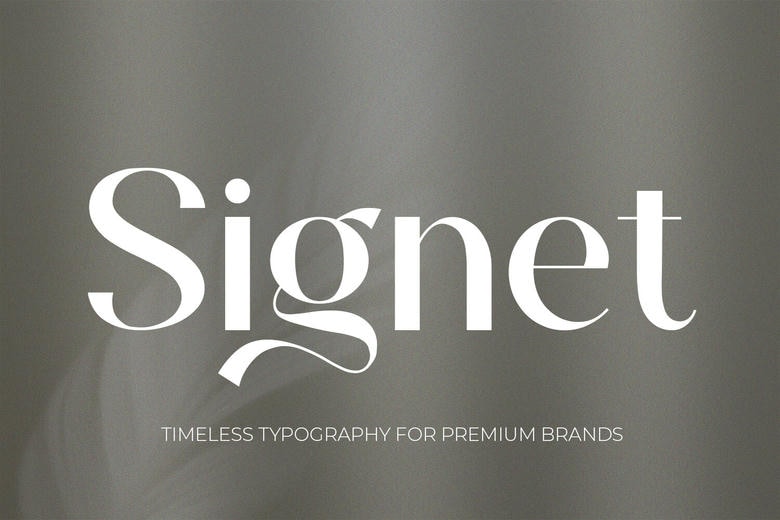
Signet Font
Signet is a high-contrast sans serif typeface designed to be used in high-end brands. With its razor-thin stems and flowing, calligraphic flourishes, most prominently in the sweeping lowercase g, Signet is a feeling of silent luxury.
It grounds your layouts in architectural accuracy and an editorial, classic beauty that is both old and new. Best Applied To: Luxury fragrance packaging, high-fashion mastheads, boutique identity design, and high-end event stationery.
Signet Sans Serif Font